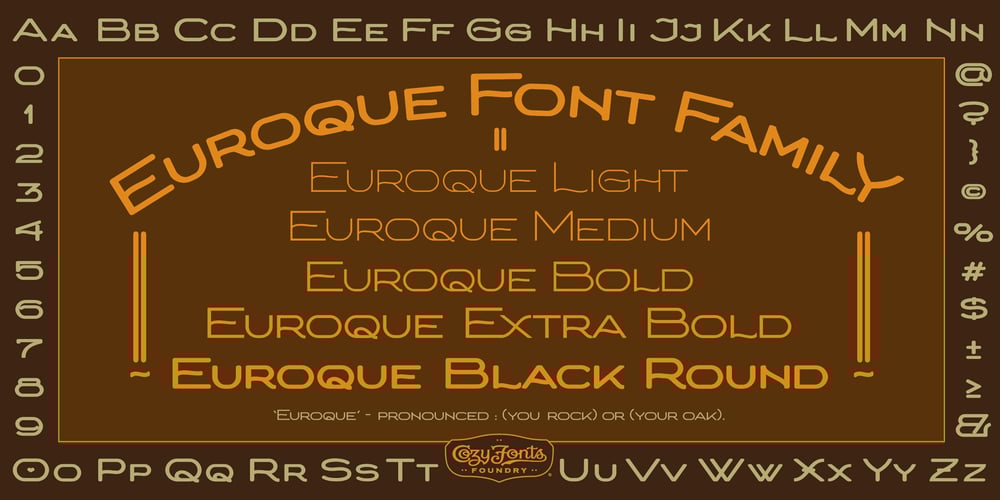
Euroque Font Family was designed by Tom Nikosey and published by CozyFonts. Euroque contains 5 styles and family package options. Euroque is the 23rd font family from Cozyfonts Foundry, a California Foundry established in 2012 by designer and typographic illustrator Tom NikoseyEuroque began with pencil sketches, as all my fonts trace their beginnings.Influenced by European poster art of the 1920s and 1930s Euroque takes its name almost literally, European Style.These fonts are designed as a Small Caps Family, where the lower case mirrors the Upper case in design but its weights are compatible and consistent.